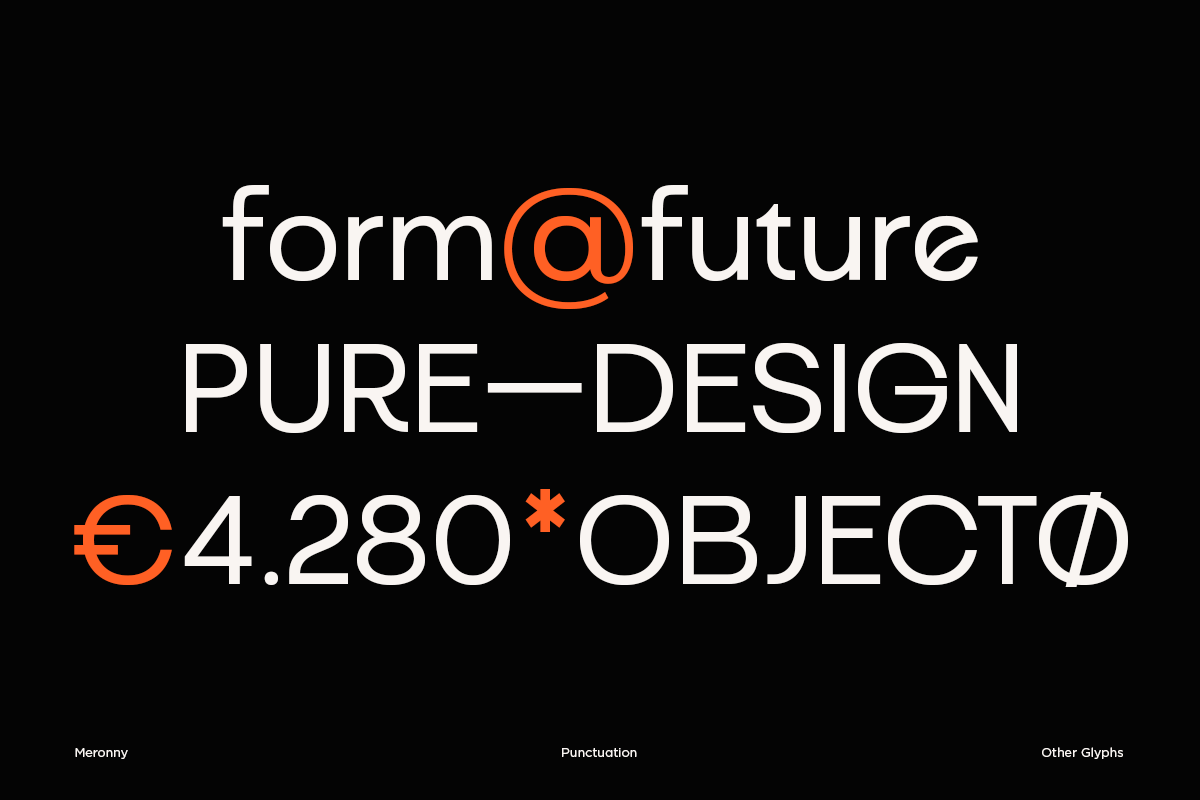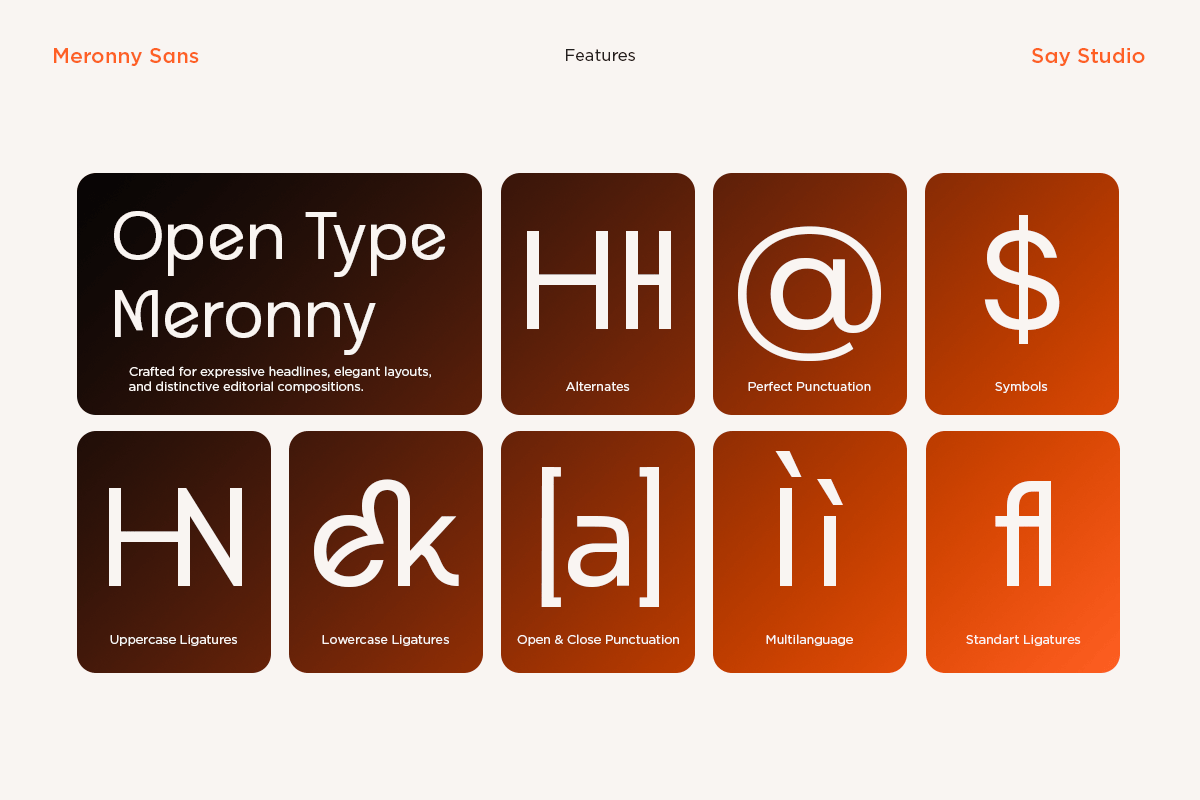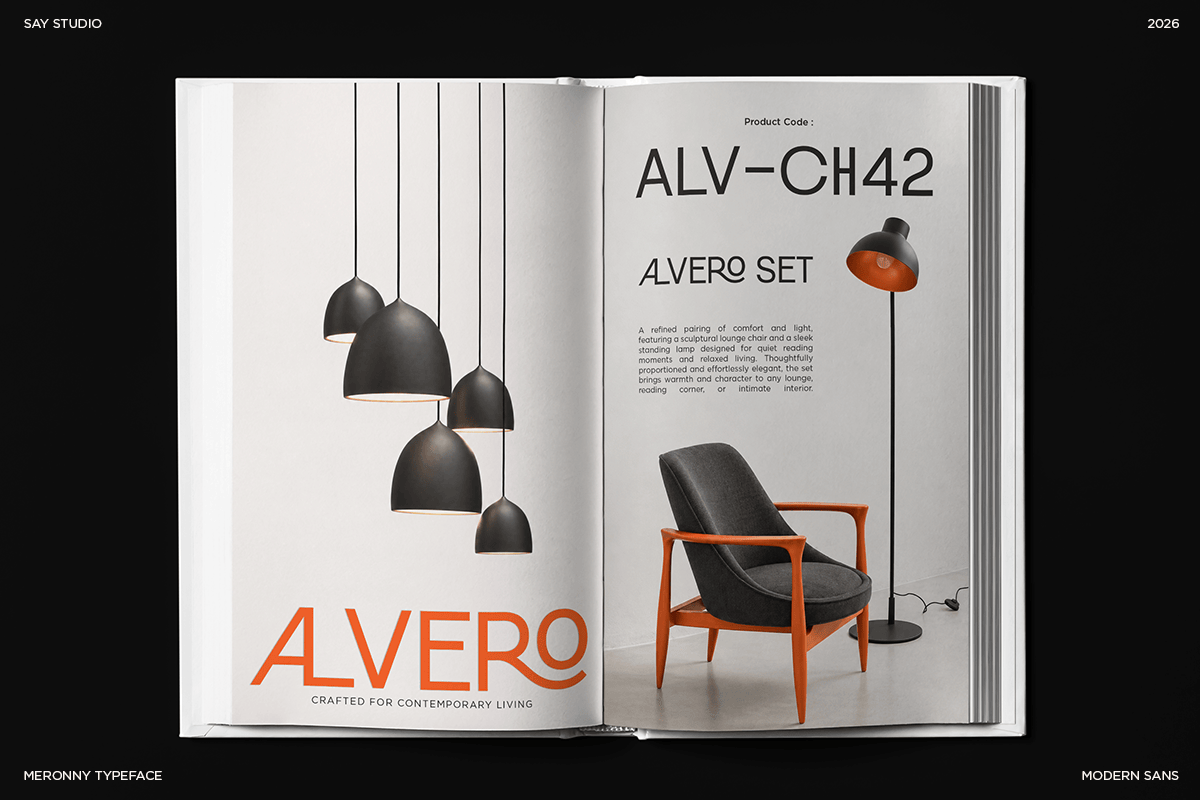
Meronny – Geometric Ligature Font
Meronny is a modern geometric ligature sans serif font designed with a clean, distinctive, and futuristic character. Its geometric structure combined with unique ligature details creates a contemporary typographic style that feels minimal, sophisticated, and visually memorable. The carefully crafted letterforms make Meronny an excellent choice for designers looking to create a strong and modern visual identity.
Perfect for branding, logo design, architecture, interior design, fashion, technology, editorial, posters, advertising, packaging, magazines, and creative headlines. Its clean geometric appearance works beautifully for modern brands, premium identities, contemporary campaigns, and futuristic design concepts, while the ligatures add an extra layer of personality to your typography.
Meronny is suitable for logos, headlines, titles, brand identities, social media designs, posters, magazines, websites, packaging, and promotional materials. Whether you are creating a sophisticated corporate identity or an experimental contemporary layout, Meronny brings a distinctive geometric aesthetic to your design projects.
- Regular and Italic
- Stylistic Ligatures
- Special Alternates
- Number, Symbols, and Punctustion